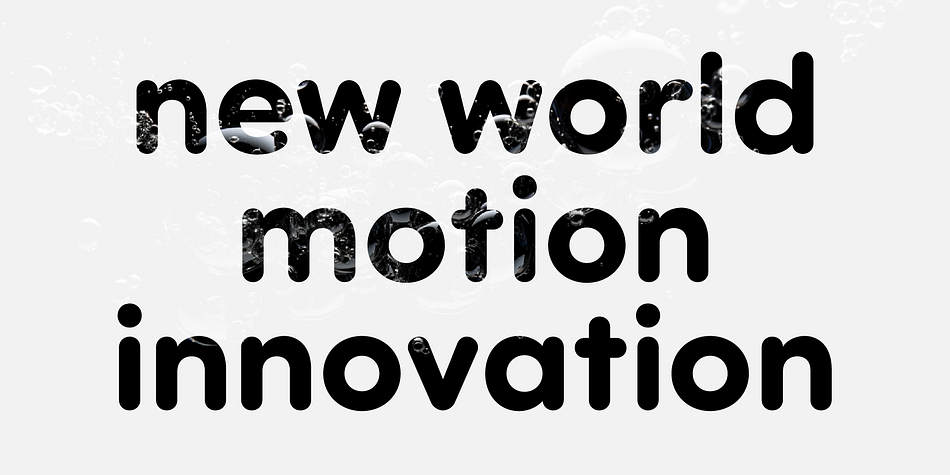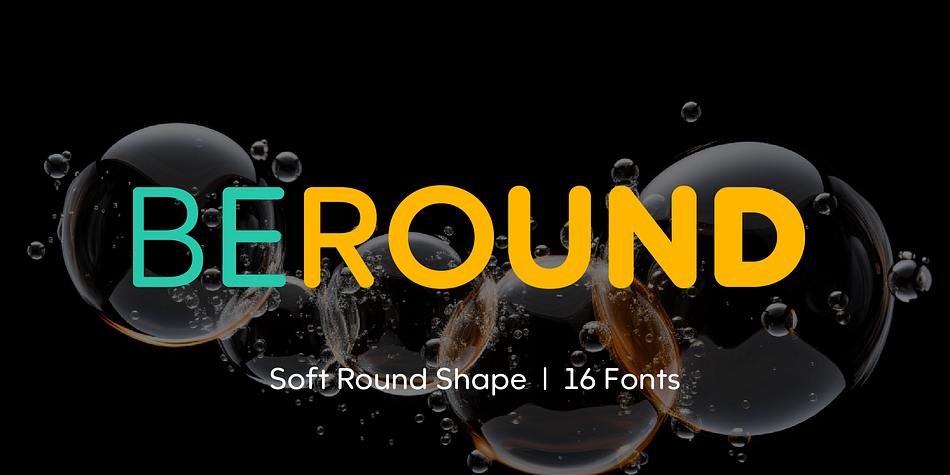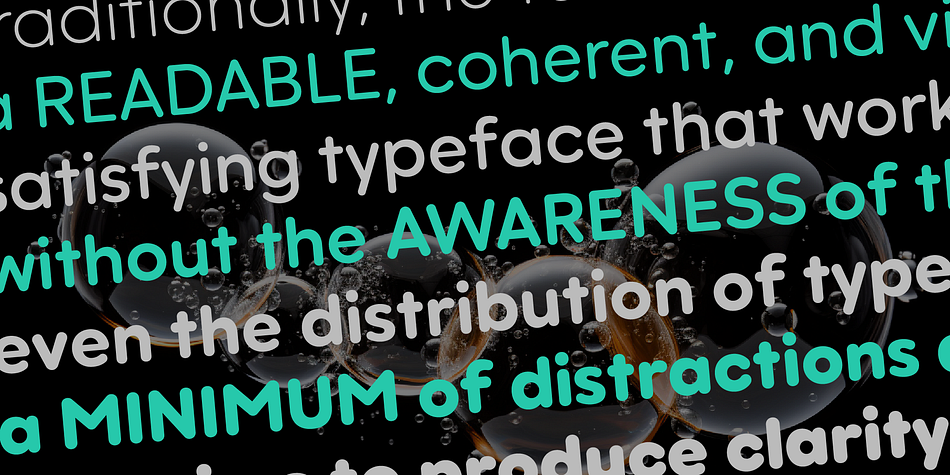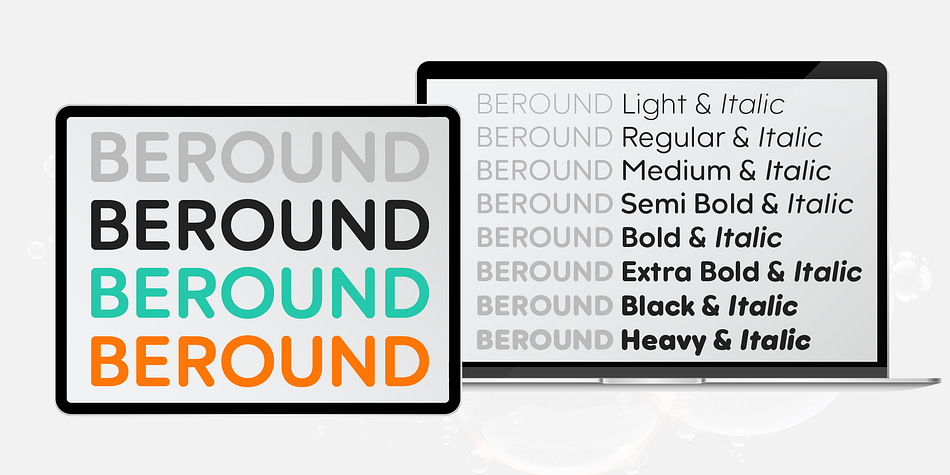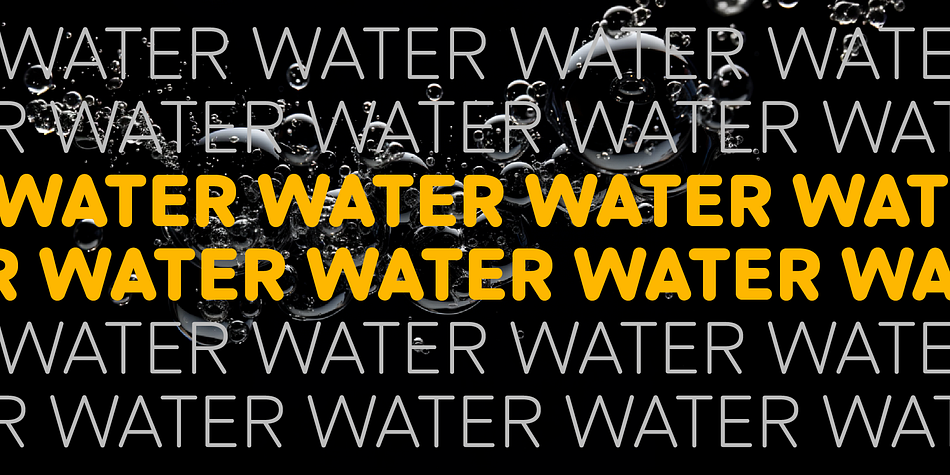
Designed by Nikolay Savchuk, Beround is a sans serif font family. This typeface has sixteen styles and was published by NicolassFonts.
Beround is a modern family based on Willgray font family with redesigned and improved glyphs for the rounded font. It comes in 16 weights, 8 uprights, and matching italics. Beround has softly rounded corners. This family is ideally suited for packaging, headlines, advertising, and corporate identities.